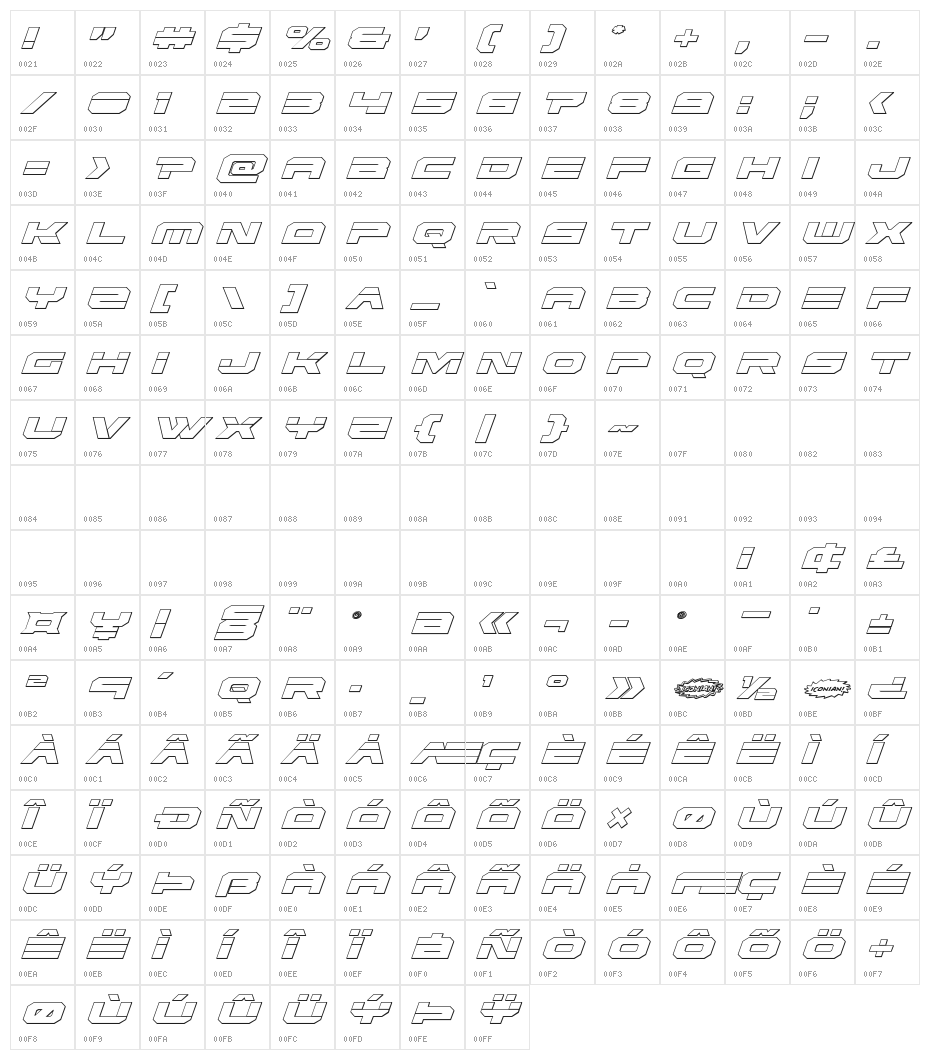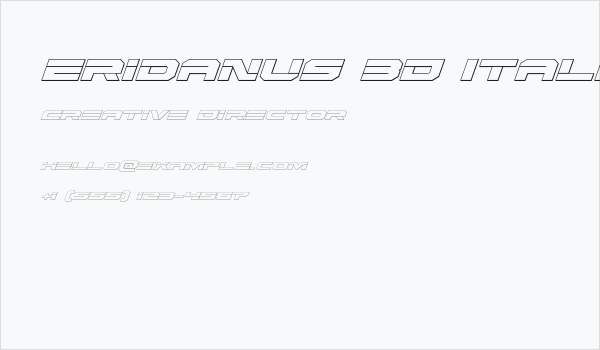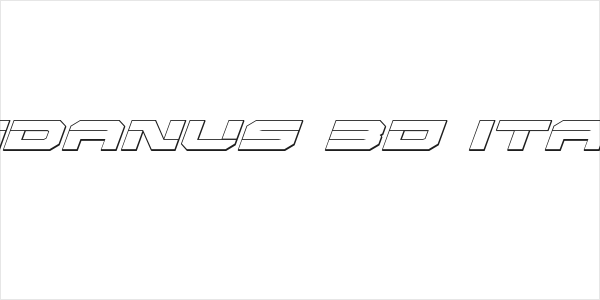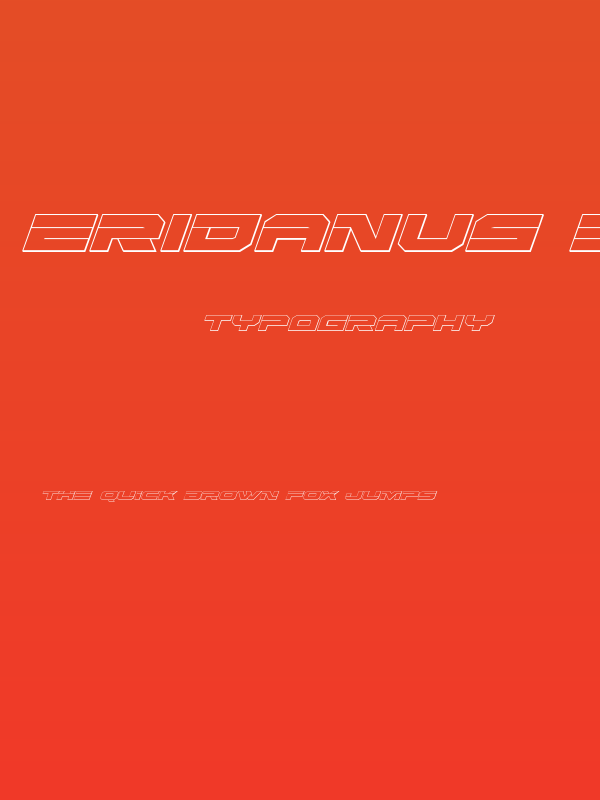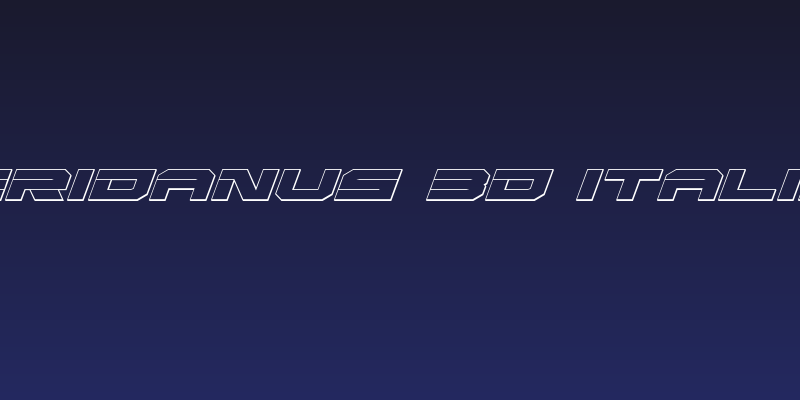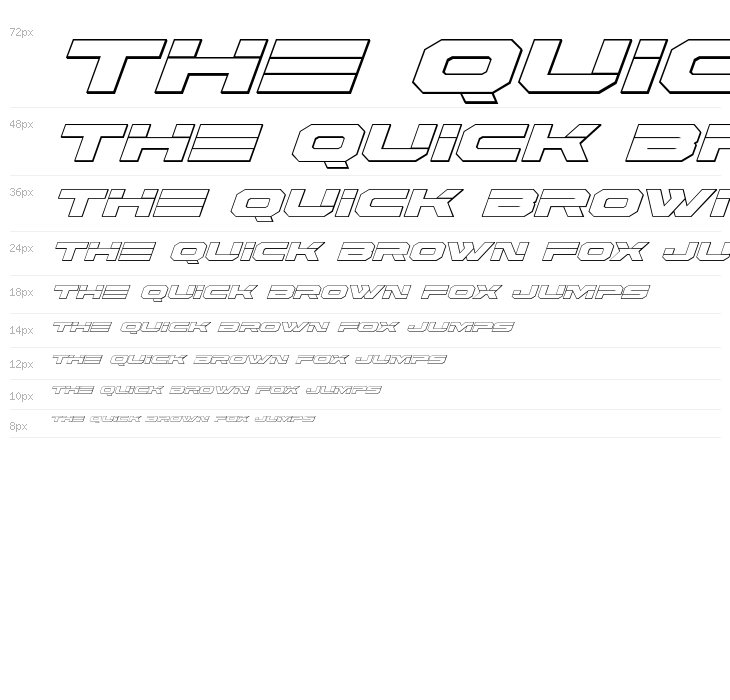
Eridanus 3D Italic Font
Eridanus 3D Italic Description
This font features a bold, three-dimensional design with an italic slant, giving it a futuristic and dynamic appearance. The characters are outlined, creating a hollow effect that enhances the 3D illusion. Each letter and number is crafted with sharp angles and clean lines, contributing to a modern and tech-inspired aesthetic. The uppercase and lowercase letters maintain a consistent style, ensuring uniformity across the typeface. The special characters are designed to match the overall theme, making this font suitable for projects that require a striking and contemporary look.
| Proposed Projects | Ideal for sci-fi themed designs, video game titles, tech branding, and futuristic posters. |